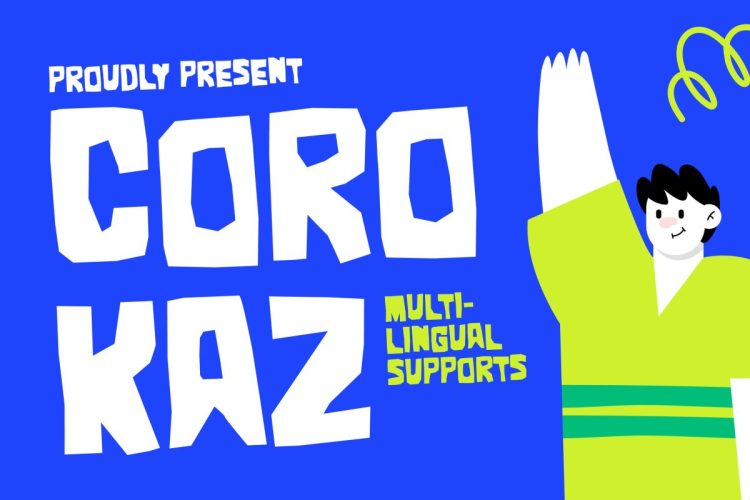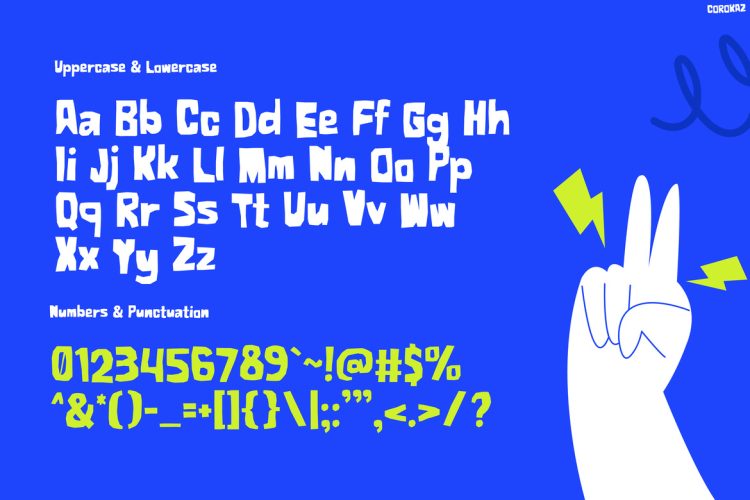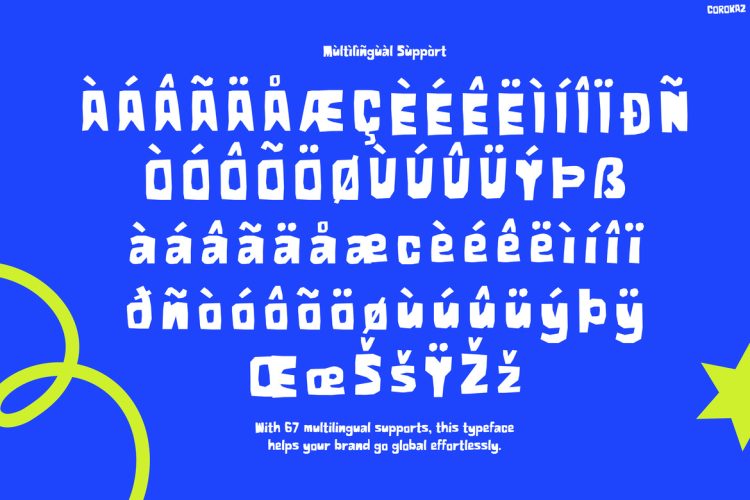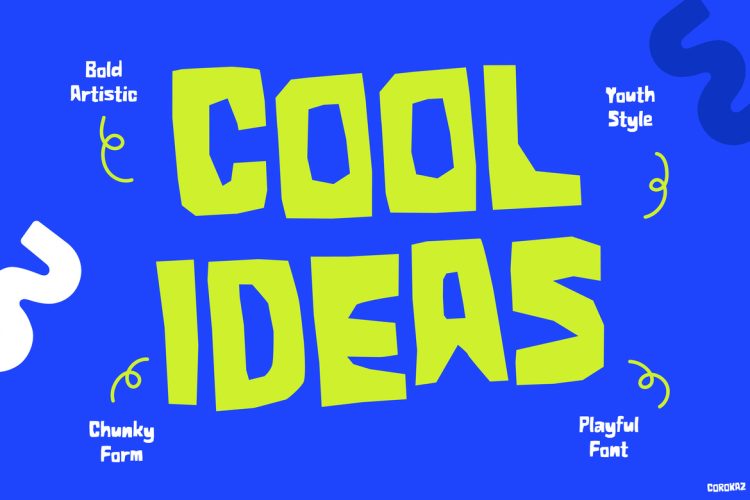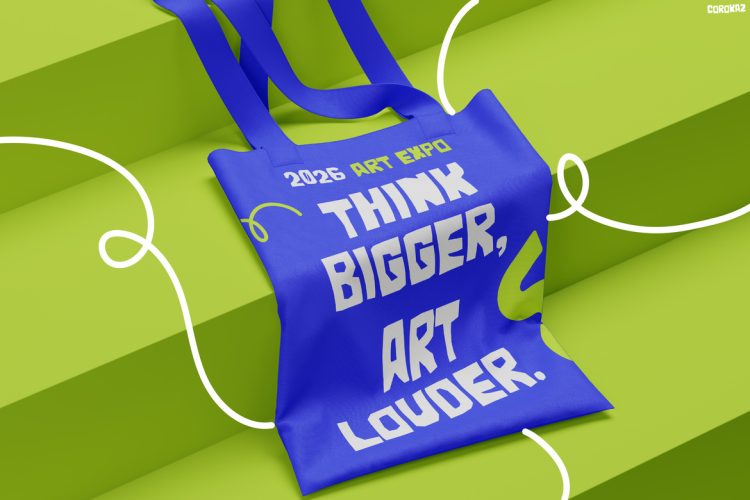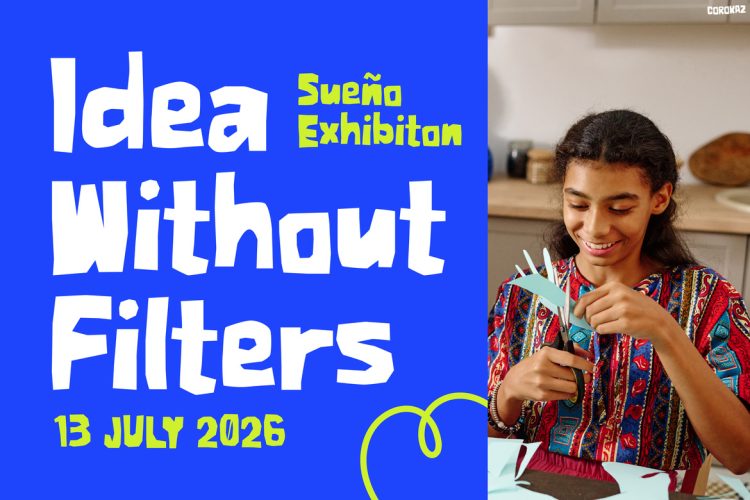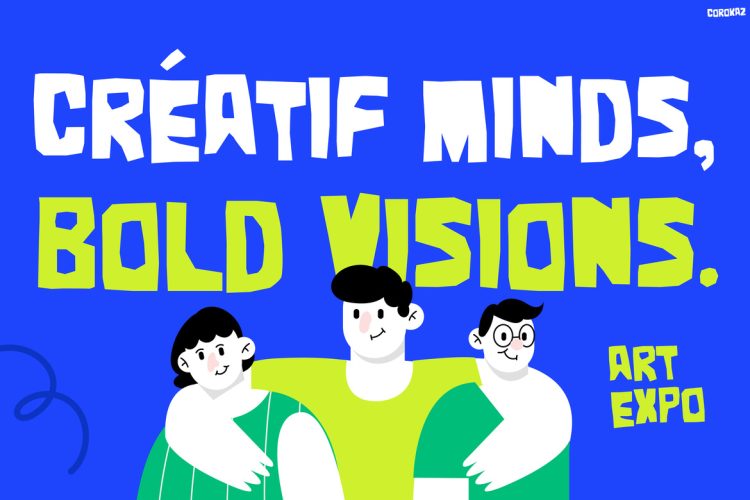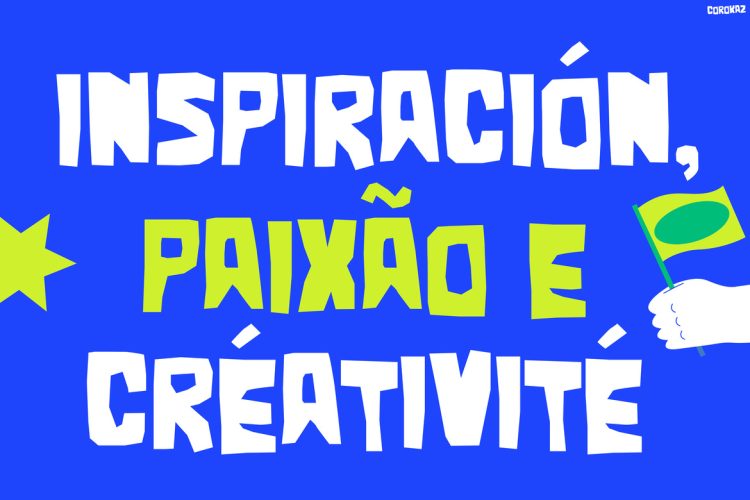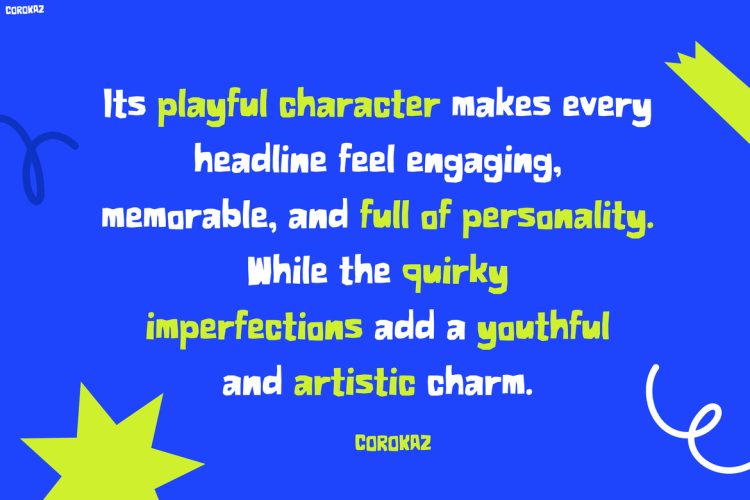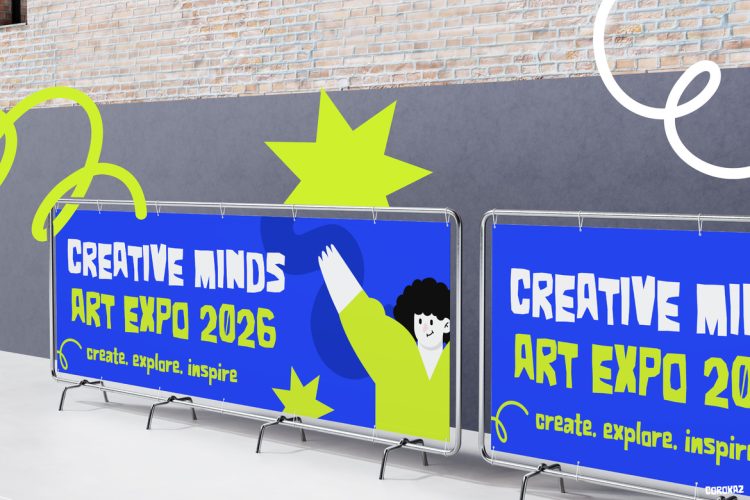
Kids Font Corokaz โ Wild, Bright & Fearlessly Creative Typography
Kids Font Corokaz is a playful display font designed to unleash imagination, creativity, and youthful energy in every design. Not only does it feature bold irregular letterforms, but it also brings a fun handcrafted personality that feels expressive and full of life. Moreover, its unique shapes and imperfect details create a charming artistic style that instantly captures attention. In addition, the chunky structure ensures excellent readability while maintaining a cheerful and experimental look. Furthermore, Corokaz delivers a fresh creative spirit that makes designs feel modern, bold, and unforgettable. As a result, every poster, branding project, and social media visual gains a stronger playful identity. Additionally, with support for 67 languages, Corokaz allows creators to share their colorful ideas with audiences around the world.
Kids Font Corokaz Perfect For
Corokaz is crafted for projects that celebrate creativity, art, and unlimited imagination. Whether you are designing kids’ brands, art workshops, creative exhibitions, school projects, educational materials, toy packaging, event posters, or social media campaigns, this font adds a lively and energetic atmosphere. Likewise, its handmade character gives every headline a personal and authentic touch. Meanwhile, the bold artistic style helps messages stand out in both digital and printed media. Consequently, your designs become more engaging, memorable, and visually exciting.
Who Can Use It?
- Kids & Children Brands
- Art & Creative Workshops
- Schools & Educational Projects
- Toy & Game Designers
- Event & Exhibition Organizers
- Social Media Creators
- Packaging Designers
- Graphic Designers & Creative Studios
Make Every Idea Pop with Corokaz
If you want your designs to look fun, fearless, and packed with creativity, Kids Font Corokaz is the perfect choice. Therefore, add this expressive display font to your collection today. Not only will it give your projects a bold artistic voice, but it will also transform ordinary layouts into eye-catching creative experiences. Ultimately, Corokaz is the perfect font for creators who think big, dream bigger, and design without limits.